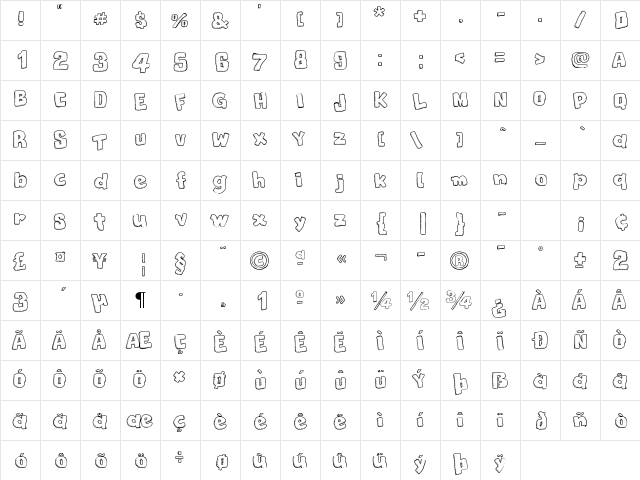
Christmas Cookies Regular
| Foundry | Galdino Otten |
| Designer | Galdino Otten |
Design Context for Christmas Cookies Typeface
Christmas Cookies is a composed and adaptable typeface that performs quietly and consistently across a wide range of design contexts.